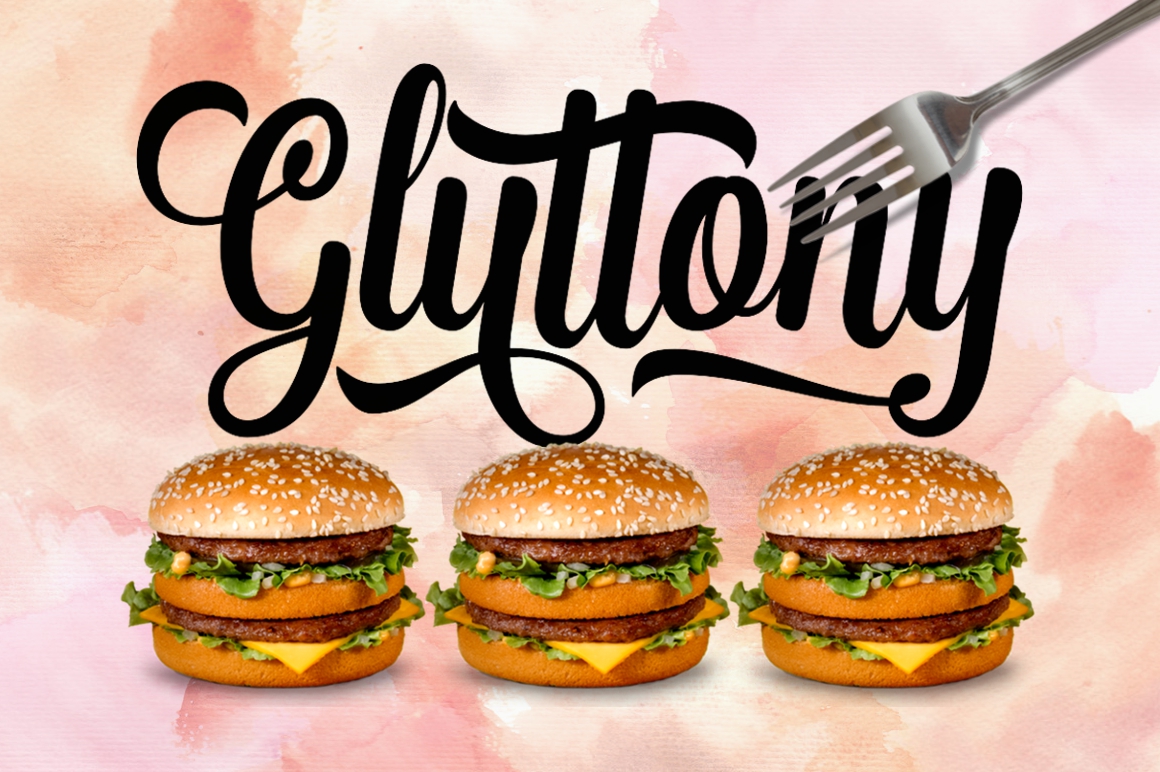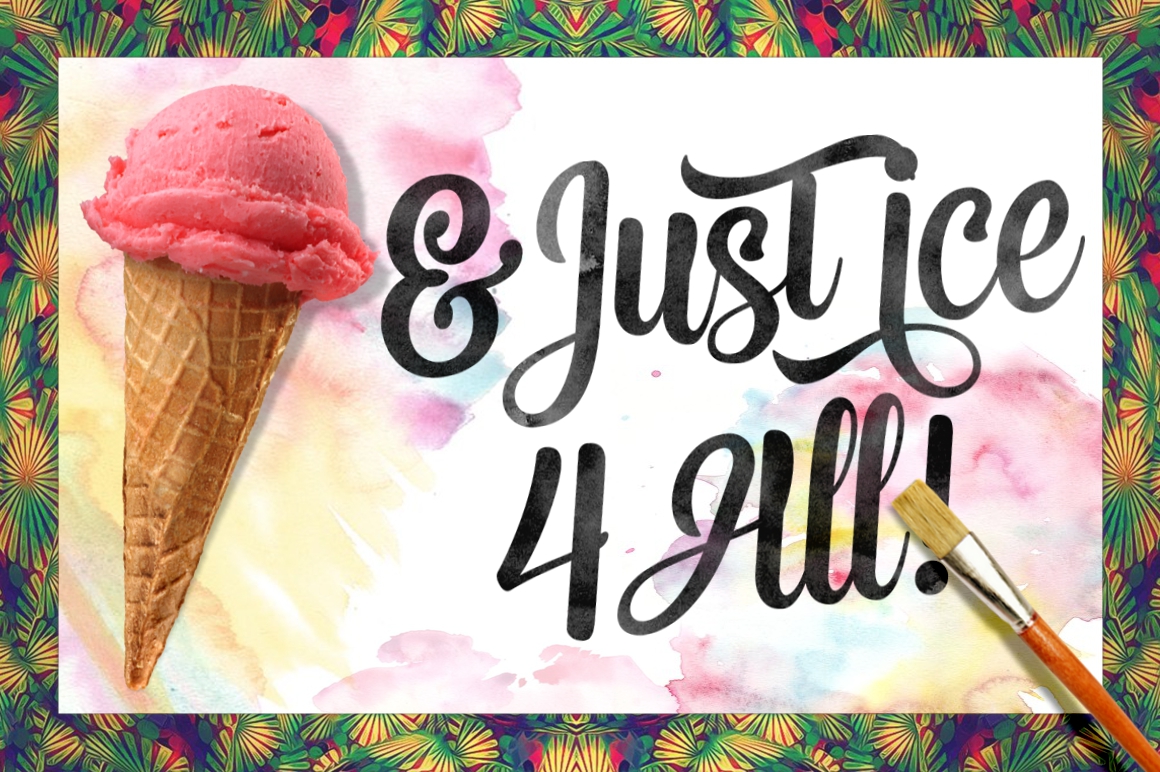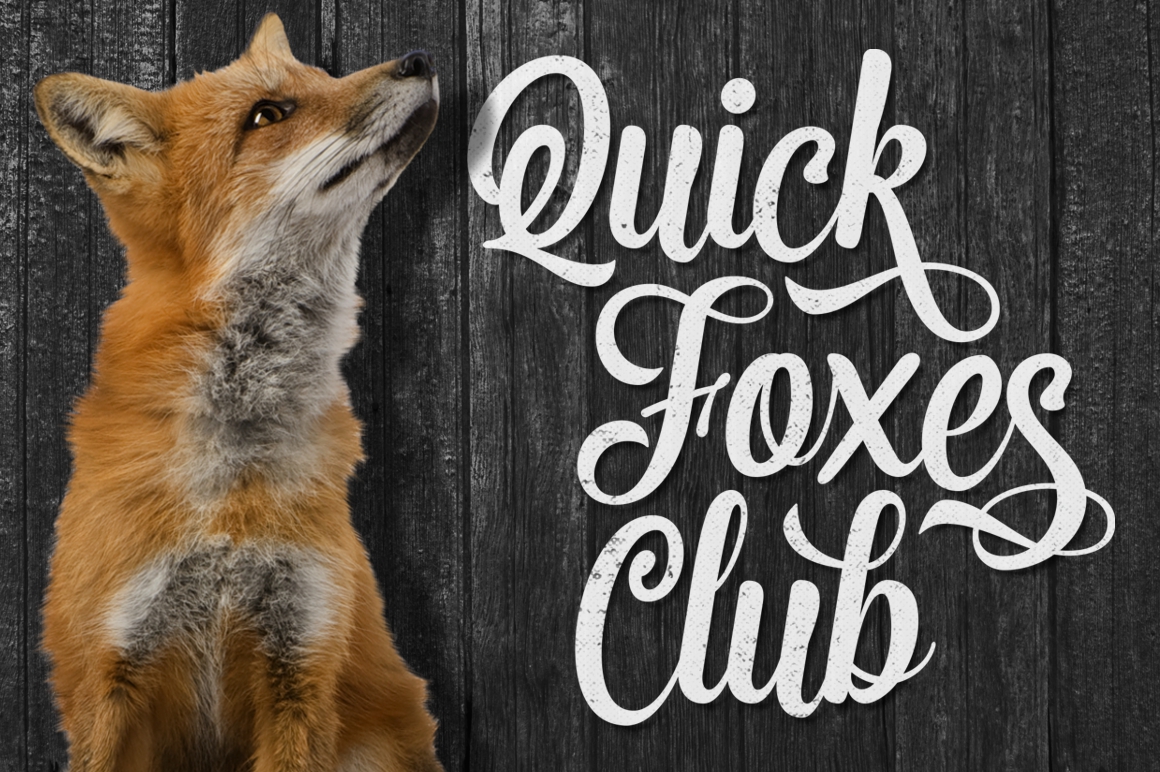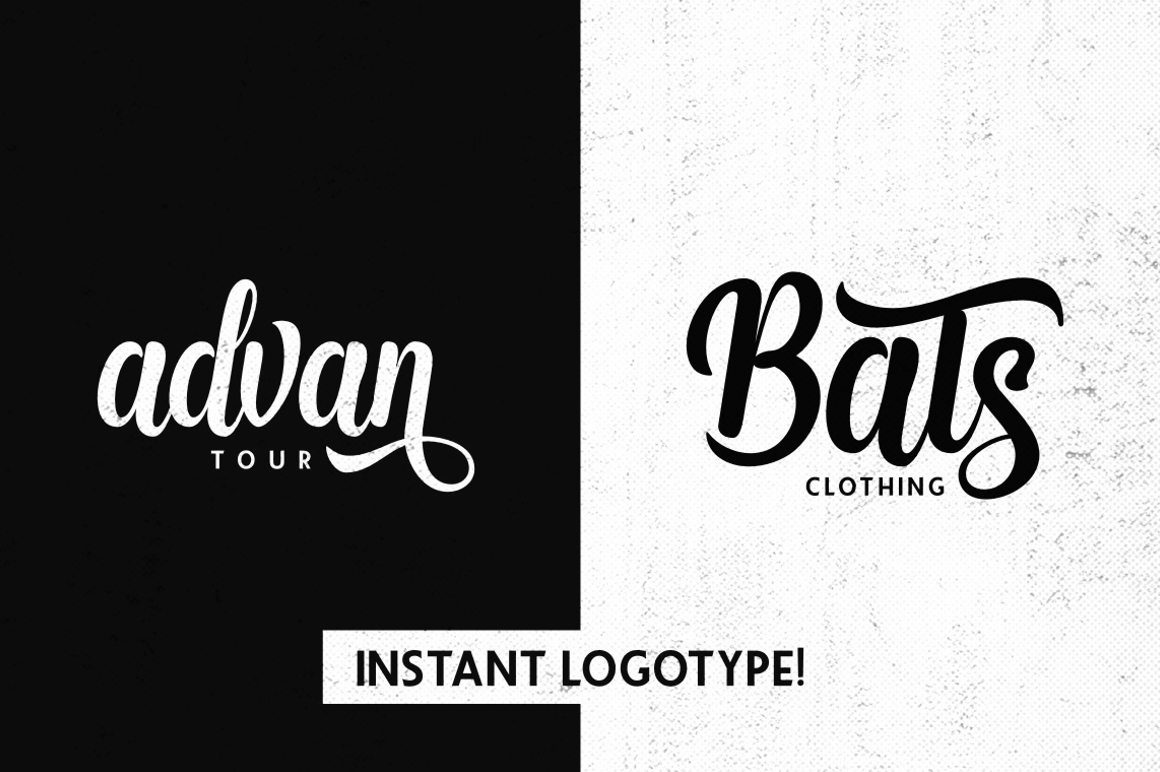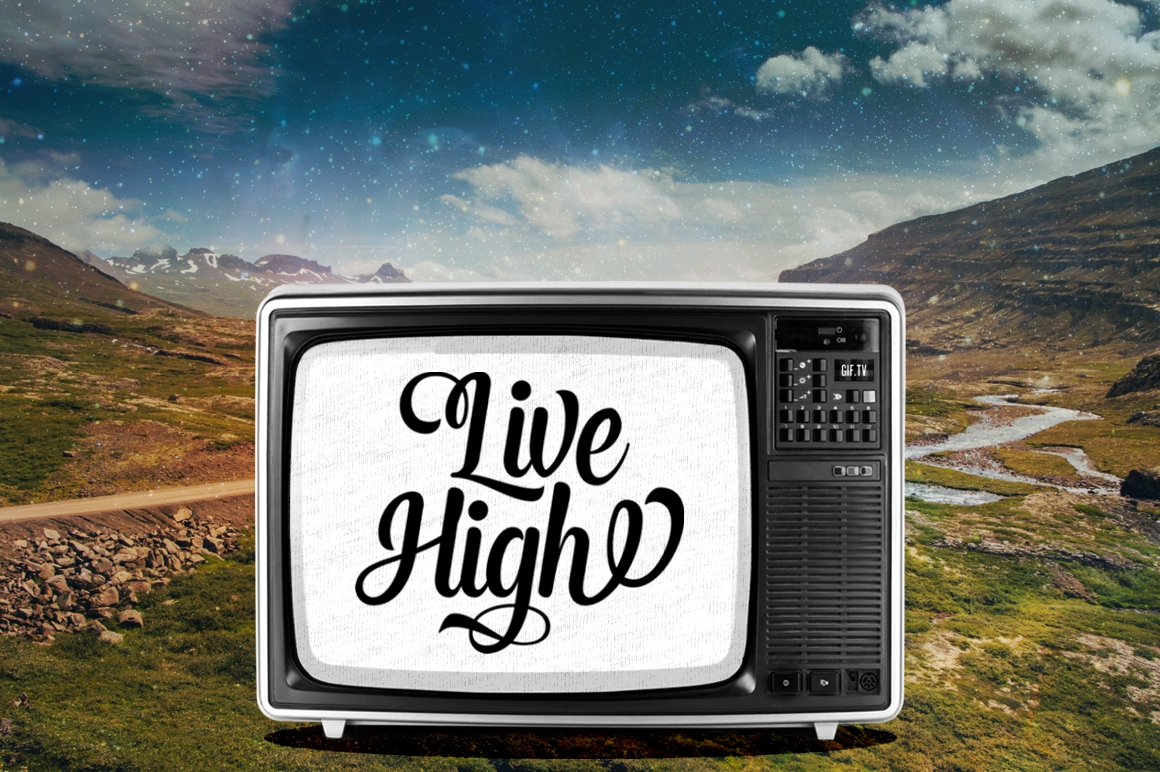
Premier Font
About Premier Font
Premier is a smooth and playful script with over 400+ glyphs. Crafted with details, smooth lines and curves but still gives you a natural hand-lettering experience, Premier is an amazing and stunning font style that can add some fun and elegance to all your designs.